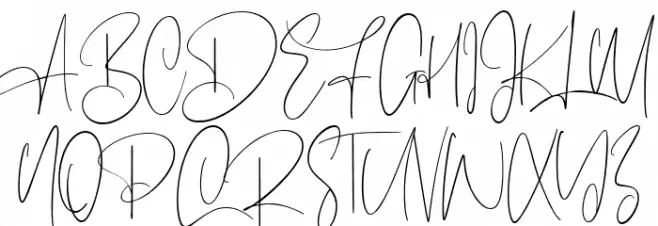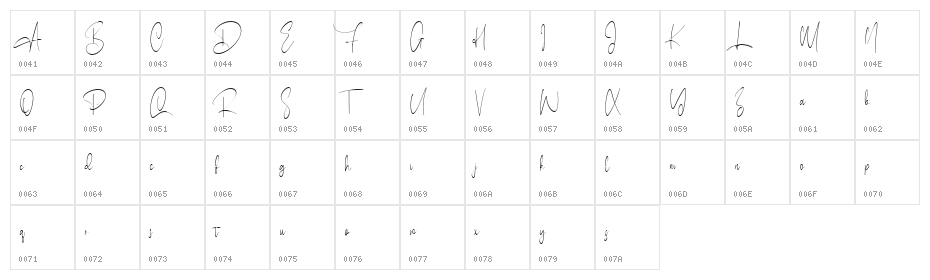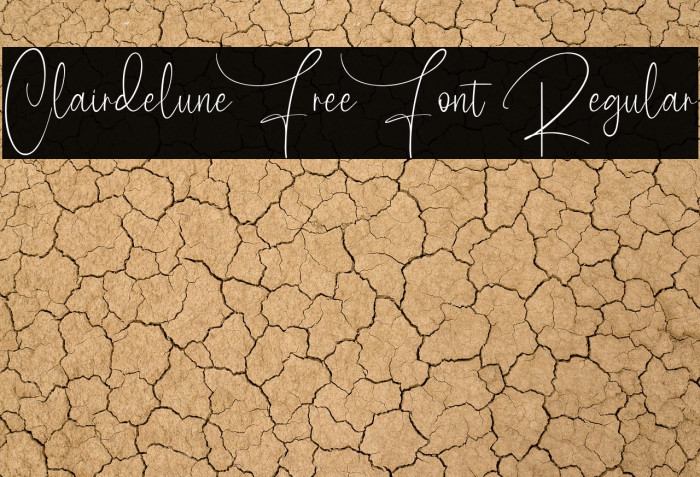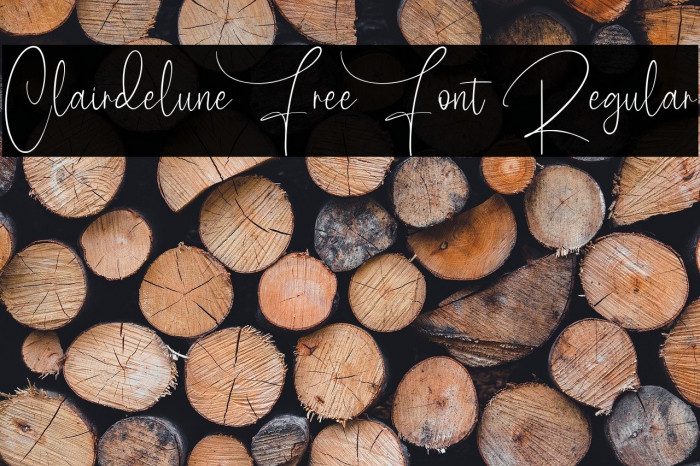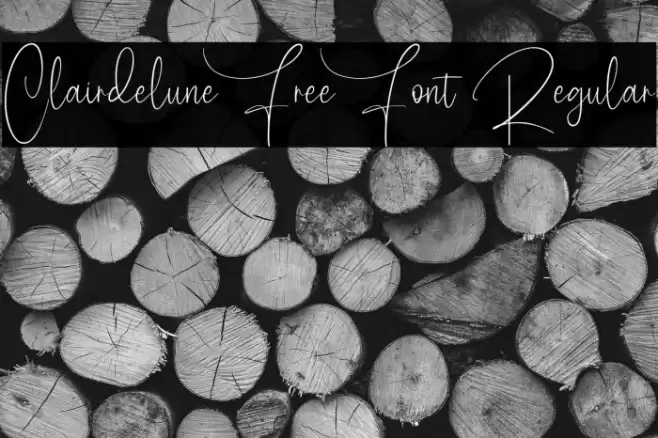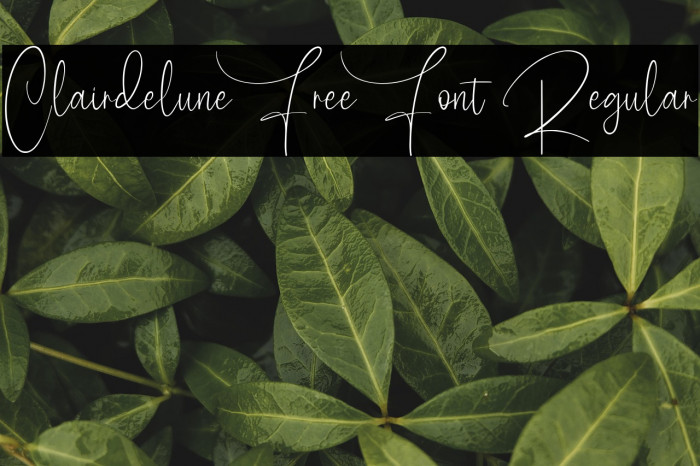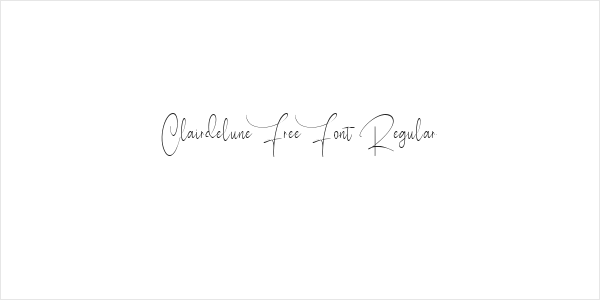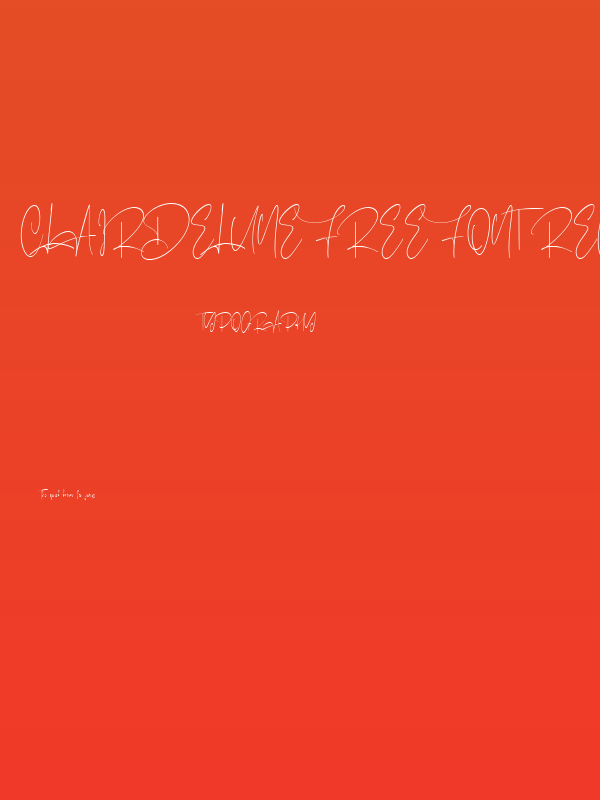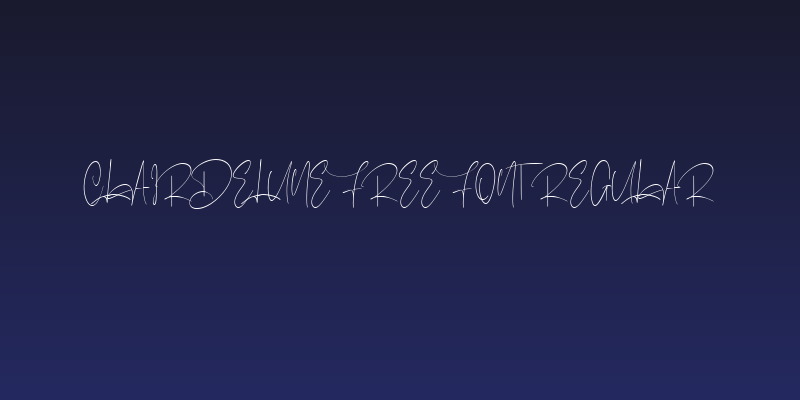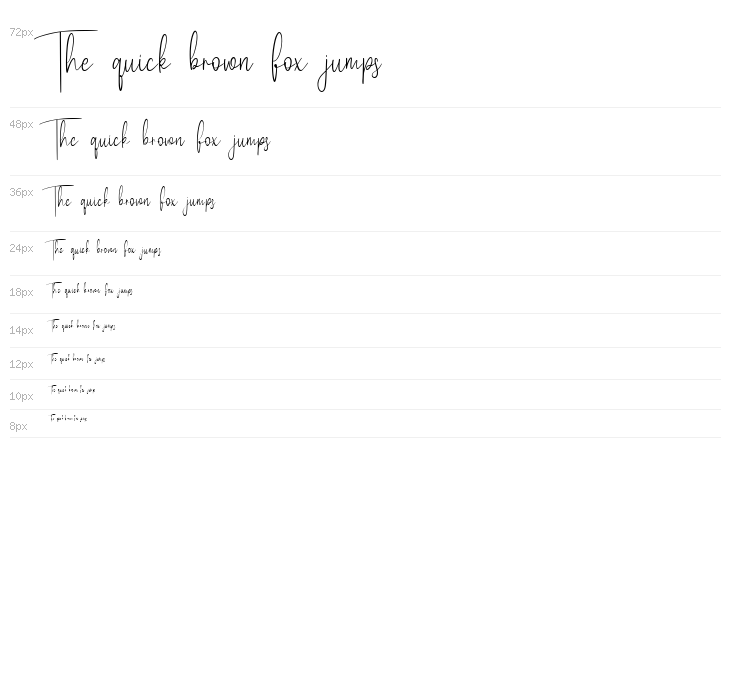
Clairdelune Free Font Regular Font
Clairdelune Free Font Regular Description
This font features an elegant and flowing script style, characterized by its delicate and intricate letterforms. The uppercase letters are particularly ornate, with sweeping curves and loops that give a sense of movement and grace. The lowercase letters maintain a consistent style, with a slightly more restrained design that complements the uppercase letters beautifully. The font's thin strokes and high contrast between thick and thin lines add to its sophisticated appearance. It is well-suited for projects that require a touch of elegance and refinement, such as wedding invitations, luxury branding, or high-end product packaging.
| Proposed Projects | Ideal for wedding invitations, luxury branding, high-end product packaging, and elegant stationery. |